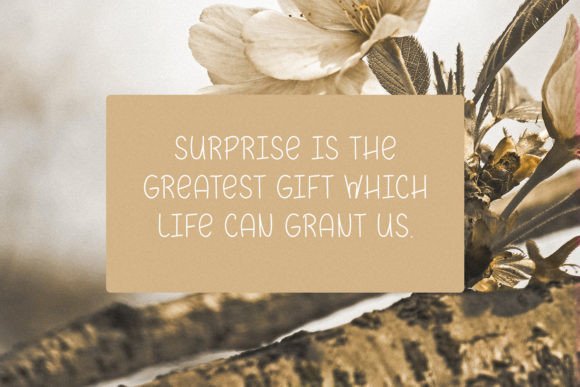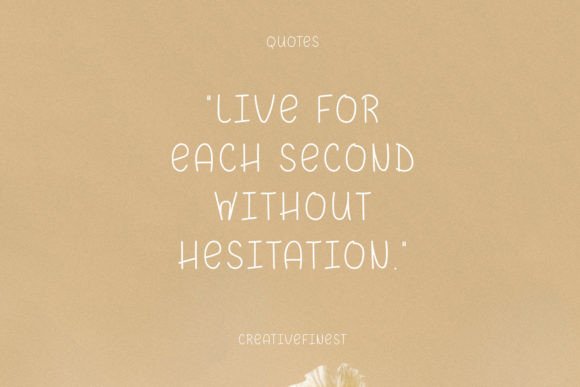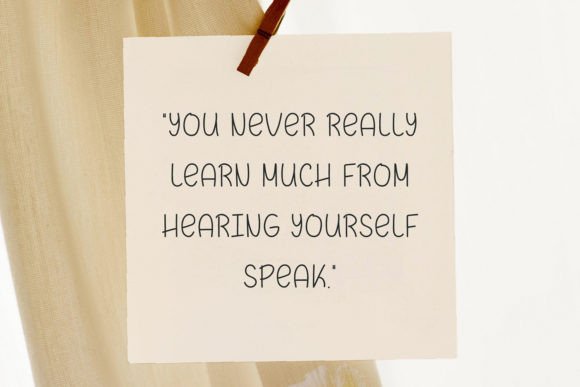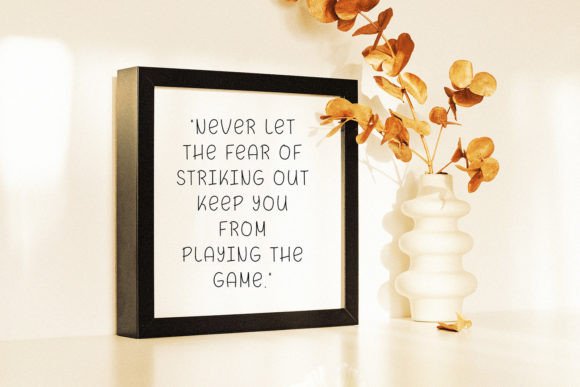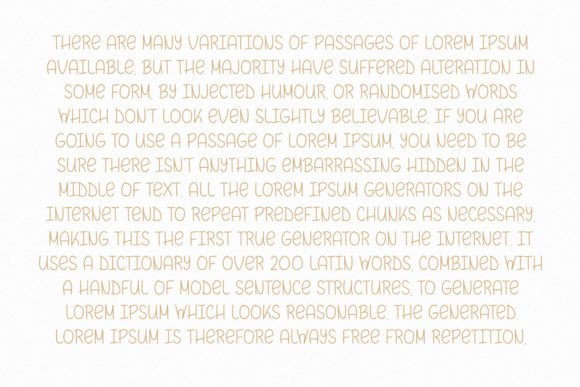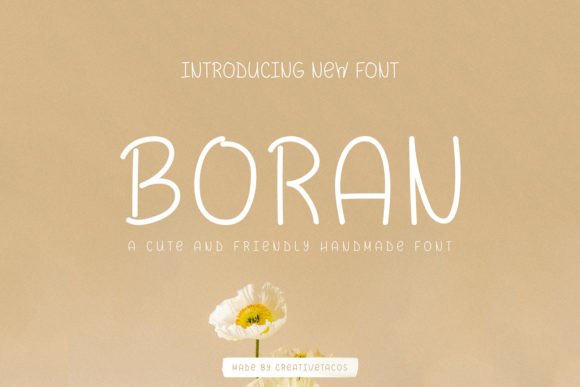
Discover the Charm of Boran Font: A Whimsical Addition to Your Design Projects
Have you ever been in the middle of a design project, and suddenly, you’re stuck on finding the perfect font? I recall a recent experience where I was working on a children’s book, and my client requested a font that was both playful and easy to read. After scouring through numerous font libraries, I stumbled upon Boran Font, and it instantly became the perfect fit. In this article, we’ll dive into the world of Boran Font, exploring its features, uses, and what makes it an excellent addition to your design toolkit.
A Personal Review of Boran Font
What I Love About Boran Font
- ✨ Cute and Friendly Style: Boran Font boasts a lovely, handmade style that adds a touch of warmth to any project.
- ✅ Versatility: It’s excellent for various projects like packaging, presentations, logos, headlines, lettering, posters, branding, quotes, titles, note-making, magazine headings, web layouts, advertising, invitations, packaging design, kid’s projects, books, and more.
- 🌈 Whimsical and Playful: The font’s whimsical nature makes it perfect for projects that require a dash of personality and fun.
While Boran Font is an excellent addition to any design project, there are a few minor quirks to consider:
- 🤔 Limited Use in Formal Projects: Due to its playful nature, Boran Font might not be the best fit for formal projects or those requiring a more professional tone.
- ⚠️ Glyph Limitations: As with any font, there might be limitations to the number of glyphs available, which could impact its use in projects requiring a wide range of special characters.
The Backstory of Boran Font
Boran Font was designed with the intention of creating a friendly, approachable font that could add a touch of whimsy to any project. Inspired by the beauty of handwriting and the playfulness of children’s books, Boran Font is the perfect fit for designers and crafters looking for a unique and charming font.
| Font Name | Boran Font |
| Author | creativetacos |
Q: What type of projects is Boran Font best suited for?
A: Boran Font is excellent for various projects like packaging, presentations, logos, headlines, lettering, posters, branding, quotes, titles, note-making, magazine headings, web layouts, advertising, invitations, packaging design, kid’s projects, books, and more.
Q: Is Boran Font suitable for body text?
A: While Boran Font is a beautiful font, it’s better suited for headings, titles, and short paragraphs. For body text, a more traditional font might be more suitable.